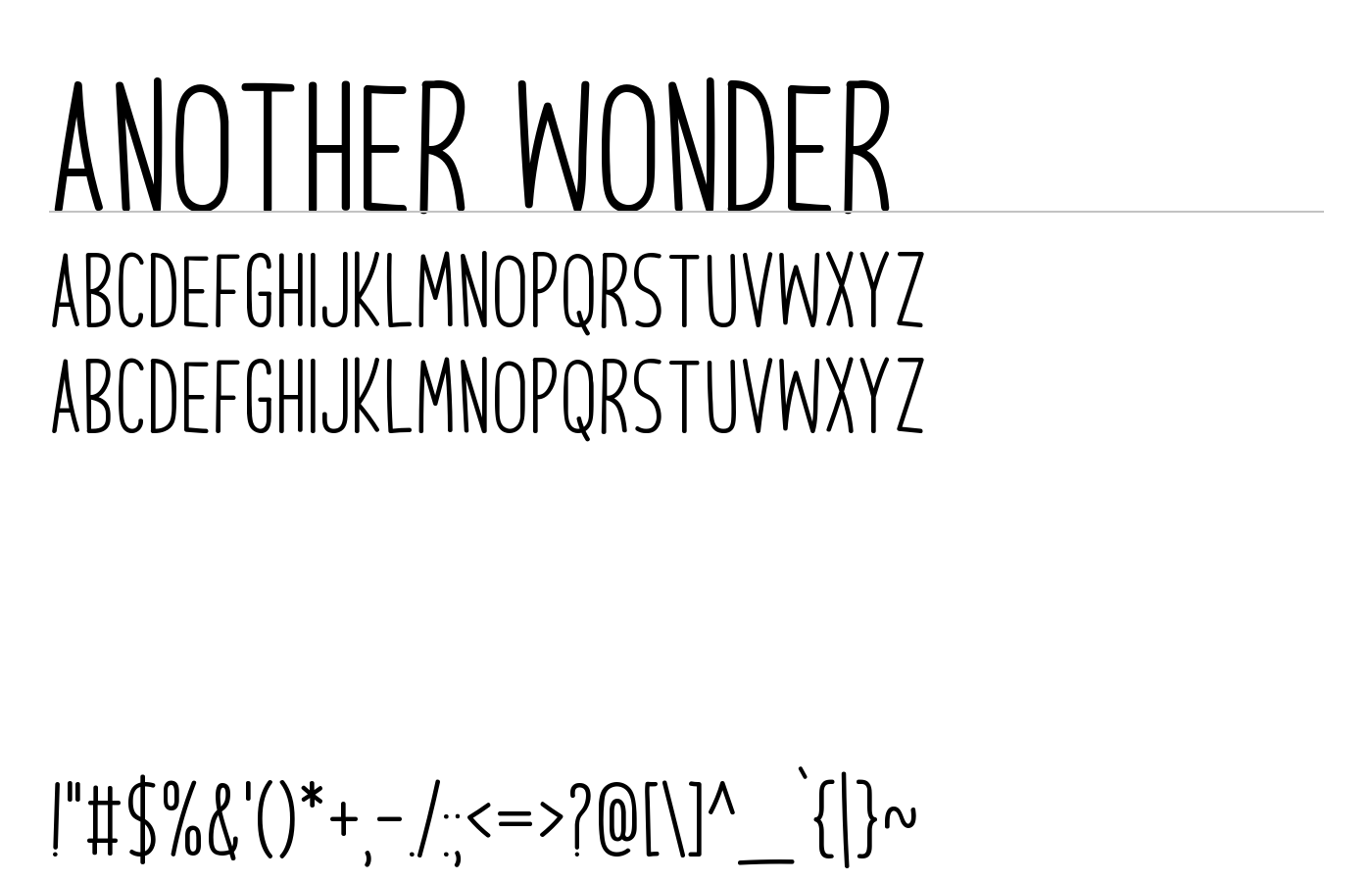
Another Wonder Font is a tall, narrow sans serif typeface characterized by its thin strokes and playful, slightly irregular letterforms that give it a hand-drawn, casual feel. Its condensed width and clean simplicity make it ideal for creative headlines, logos, and projects that want to convey a friendly, whimsical personality without losing clarity. This font works well in designs seeking a modern yet approachable vibe, especially for children's products, informal branding, or artistic editorial use.
Another Wonder Font